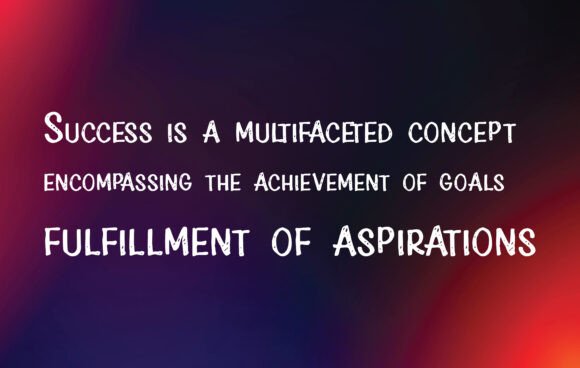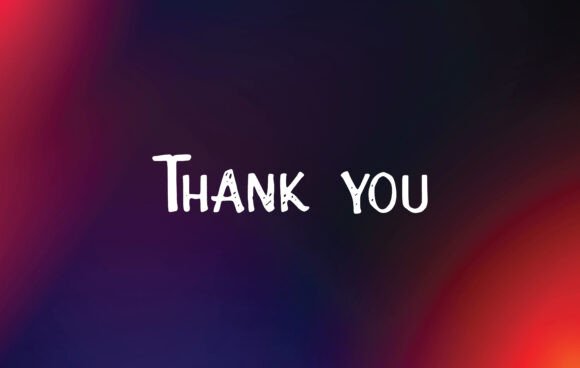
Introduction to Larkspur Font
Have you ever been working on a creative project, pouring your heart and soul into it, and then—just as you’re about to finalize the design—realize that it’s missing that one perfect font to tie everything together? That’s exactly what happened to many of us, until the Larkspur Font came along. This stunning font is a game-changer for designers, offering a perfect blend of style and versatility that makes it the go-to favorite in any design collection.
With its easy-to-read design, the Larkspur Font works beautifully for both titles and body text, making it an invaluable resource for any creative project. Whether you’re designing magazine headlines, t-shirts, social media posts, branding materials, wedding invitations, or greeting cards, this font fits right in.
Key Features of Larkspur Font
- High-quality design resource with a unique and elegant style, perfect for creative projects.
- Includes a transparent background, allowing for easy customization and integration into various design elements.
- Features a large character set, including uppercase and lowercase letters, numbers, and punctuation marks.
Honest Review: Larkspur Font
I recently had the chance to work with the Larkspur Font, and I must say it’s a great addition to any designer’s toolkit. The font is available as a free download, making it an excellent resource for creative projects on a budget.
What works well with the Larkspur Font is its high quality and versatility. It’s perfect for both digital and print designs, and its transparent background makes it easy to layer over other elements. The font also comes in a variety of weights and styles, giving designers plenty of options for their projects.
- ✨ Clean and elegant design
- ✨ High quality and professional-looking results
However, there are a few limitations to consider. The font may not be suitable for all types of projects, particularly those that require a bold or distressed look. Additionally, some users may find the font a bit too elegant for certain designs.
- ⚠️ May not be suitable for bold or distressed designs
- ⚠️ May be too elegant for certain projects
Overall, I’m impressed with the Larkspur Font and would definitely recommend it to designers looking for a high-quality, versatile font for their creative projects.